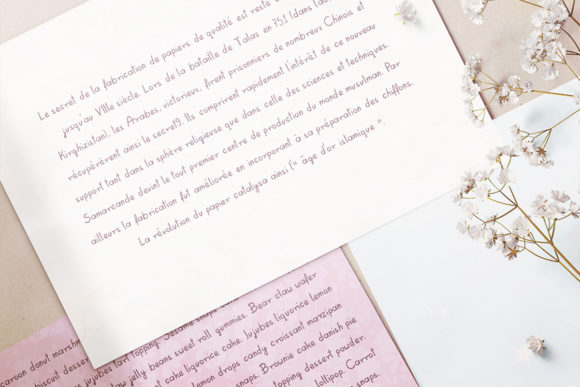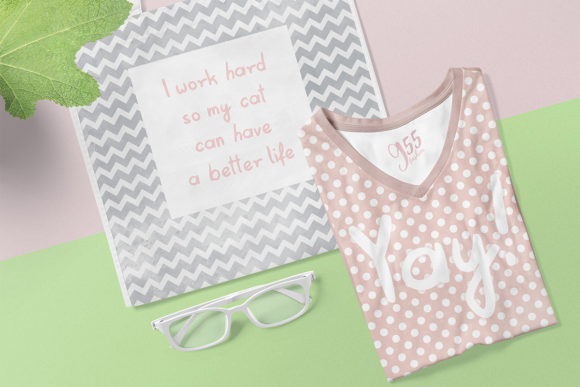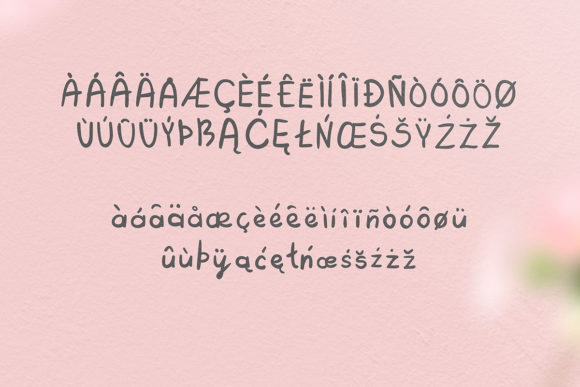
Introduction to Pralinka Font
Pralinka is a cute and casual handwritten font with an incredibly friendly feel.
Use this gorgeous and unique font to bring any DIY project to life .
Why Choose Pralinka Font?
Pralinka Font offers exceptional quality and versatility, making it a valuable addition to your design toolkit. Whether you’re creating for personal projects or commercial use, Pralinka Font delivers professional results.